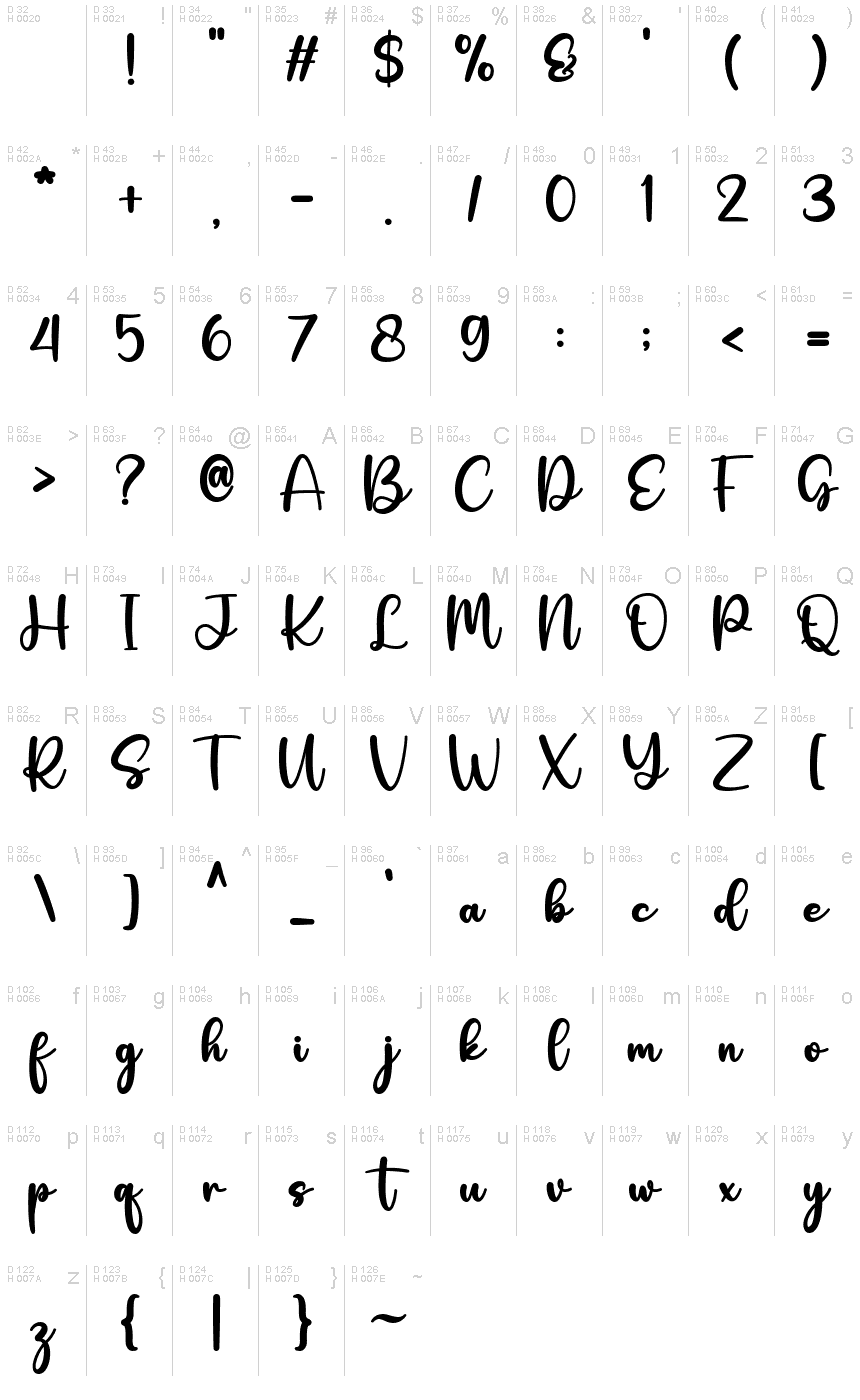
Sand And Castle, a creation by Nirmala Creative, is a font that embodies the effortless elegance of handwritten script. With its flowing lines and organic forms, this font exudes a casual sophistication that adds a personal touch to any project. Its distinct character is defined by an expressive variability in stroke weight, evoking the spontaneity of ink on paper.
The aesthetic appeal of Sand And Castle lies in its balanced blend of refinement and playfulness, making it an excellent choice for designs that require both readability and flair. From invitations and branding to social media graphics and editorial layouts, this font has the versatility to elevate your creative work with its stylish charm.
Embrace the unique personality of Sand And Castle for projects that demand a font with heart – one that speaks with authenticity and artistic warmth.